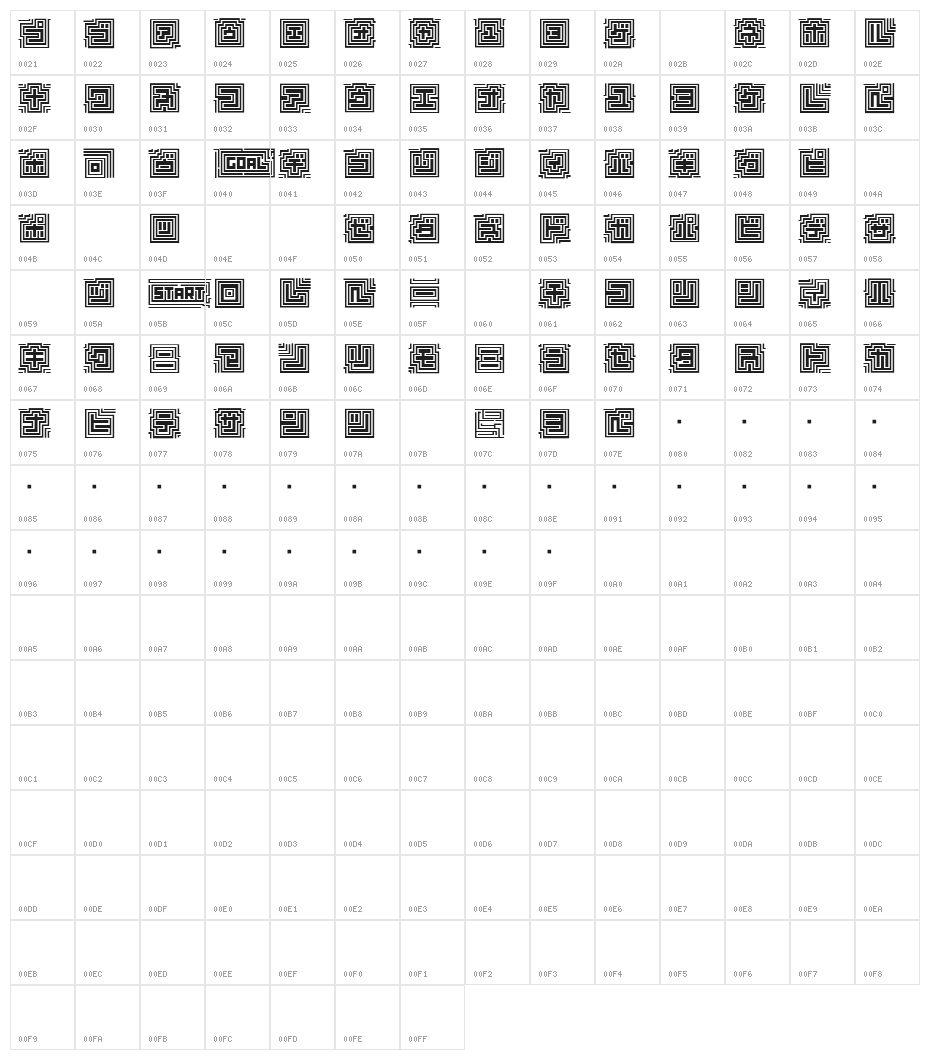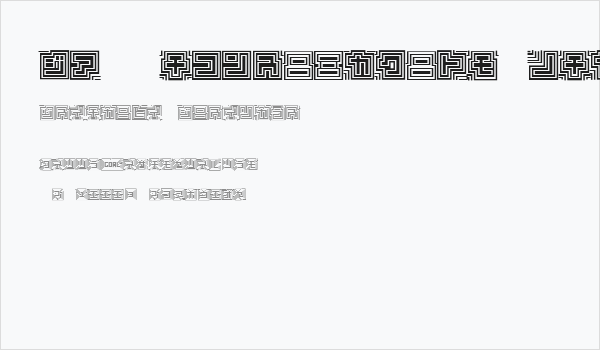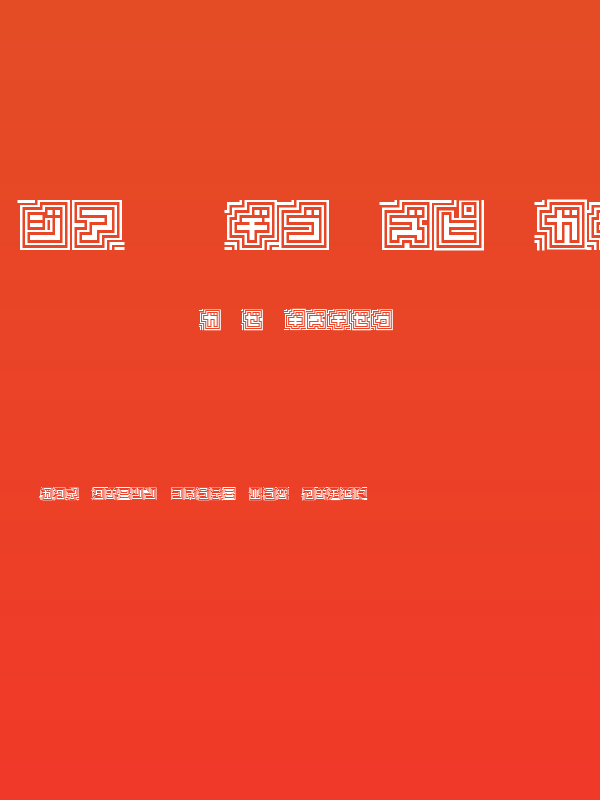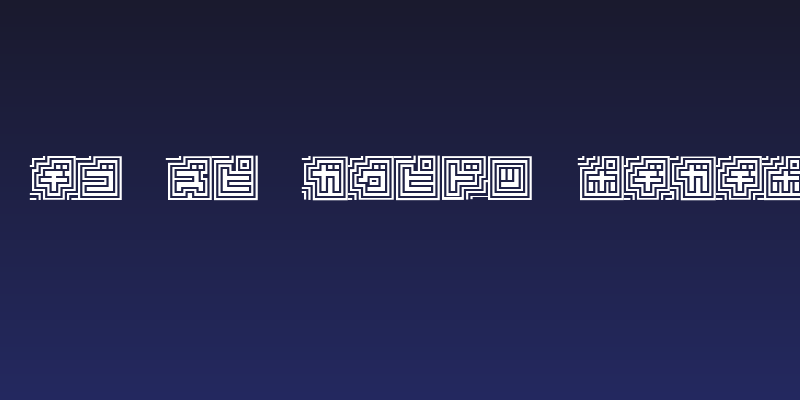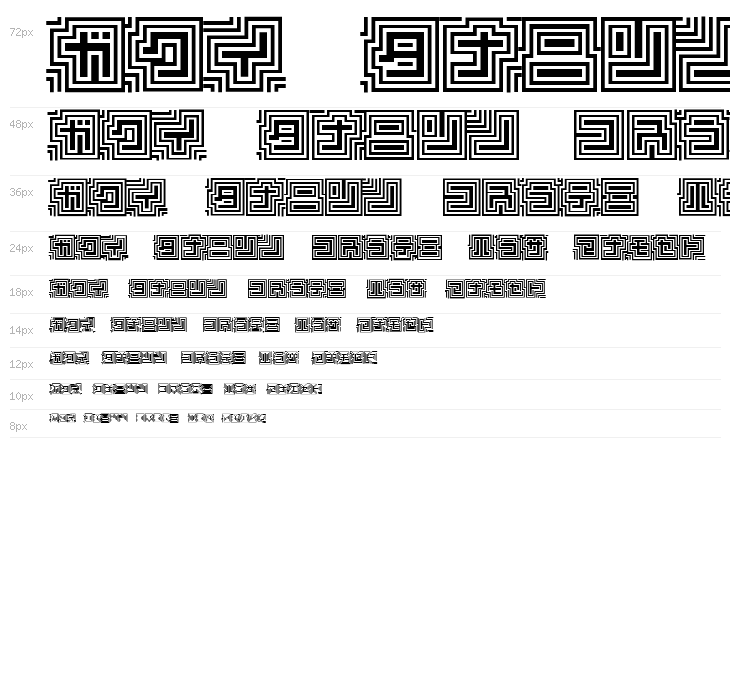
D3 Labyrinthism katakana Font
D3 Labyrinthism katakana Description
This font features a highly intricate and maze-like design, reminiscent of labyrinth patterns. Each character is composed of multiple layers of lines, creating a complex and visually engaging appearance. The style is bold and geometric, with a strong emphasis on symmetry and structure. The characters are tightly packed, with minimal spacing between them, enhancing the maze-like effect. This font is unique and artistic, making it suitable for creative and unconventional design projects. Its decorative nature makes it stand out, but it may not be suitable for body text due to its complexity.
| Use Case | Logos, Headlines, Artistic Designs |
| Proposed Projects | Ideal for artistic posters, album covers, video game graphics, and creative branding projects. |